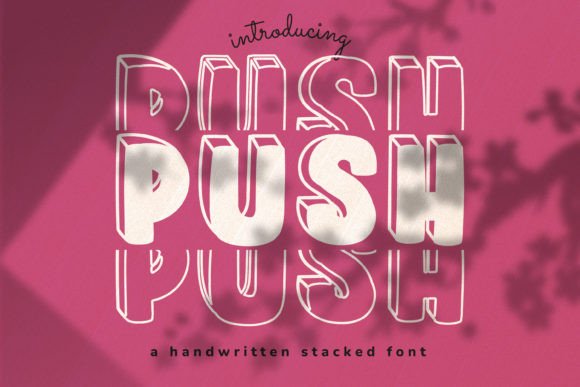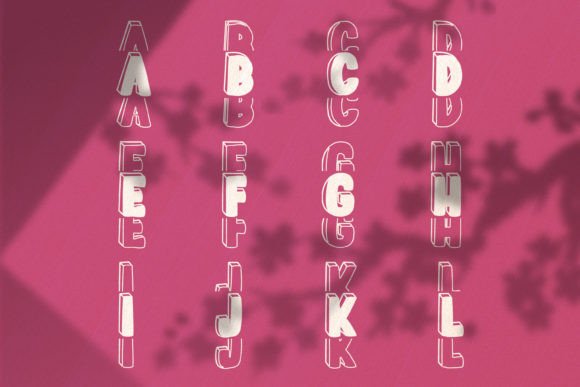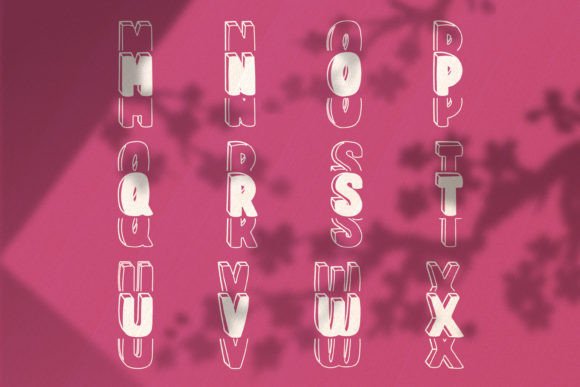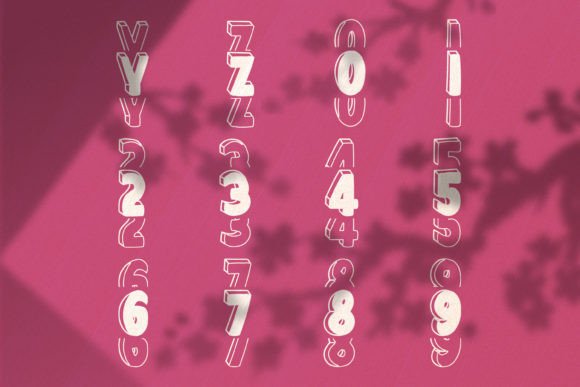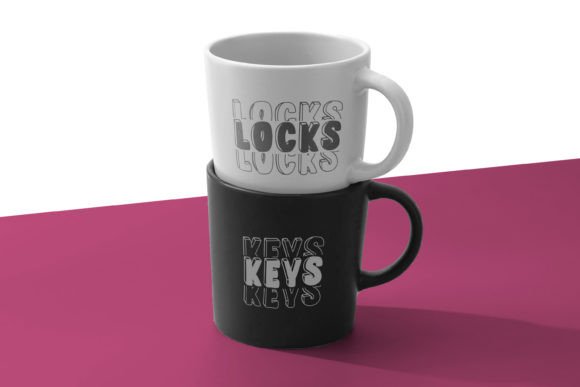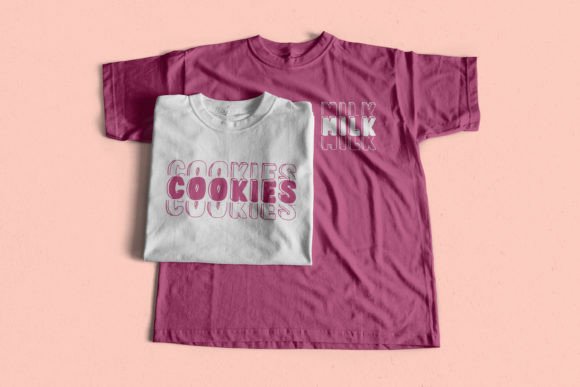
Push Font
Push is an incredibly cool font. Whether you use it for custom designs, DIY crafts, or just any creation that requires a lovely touch, this font will be an amazing choice.